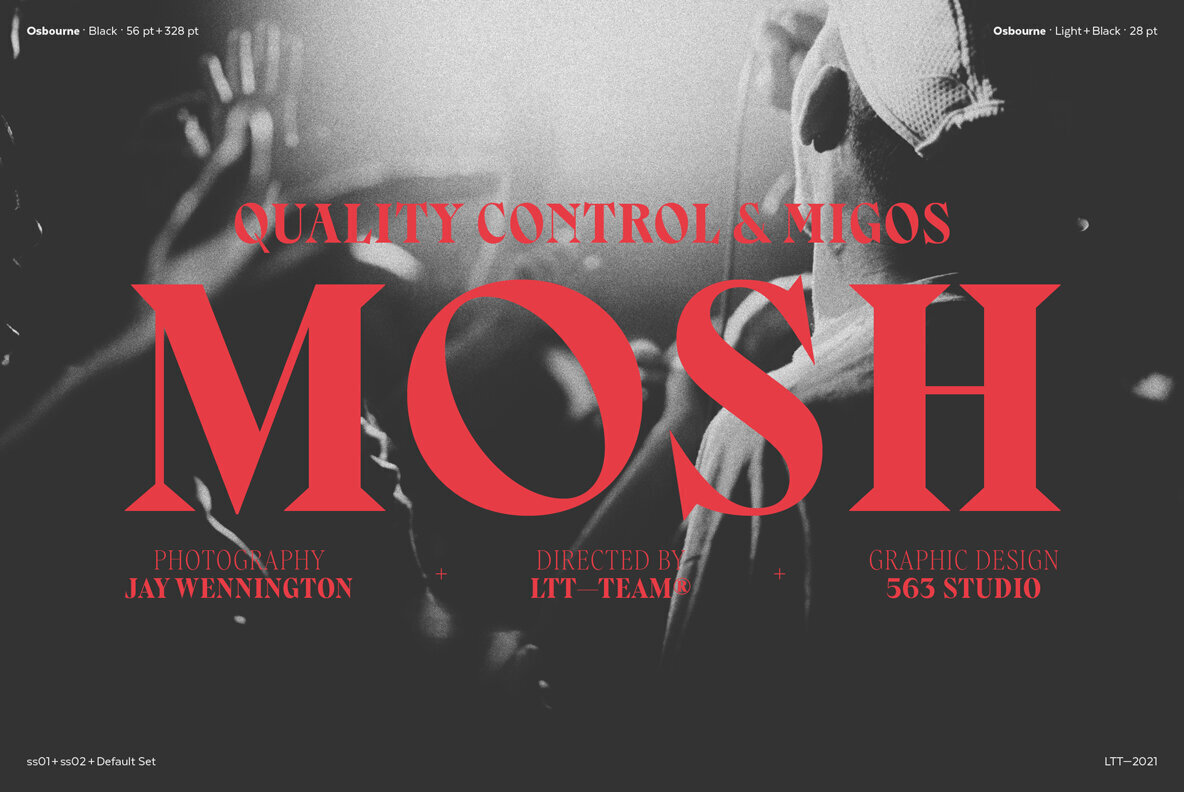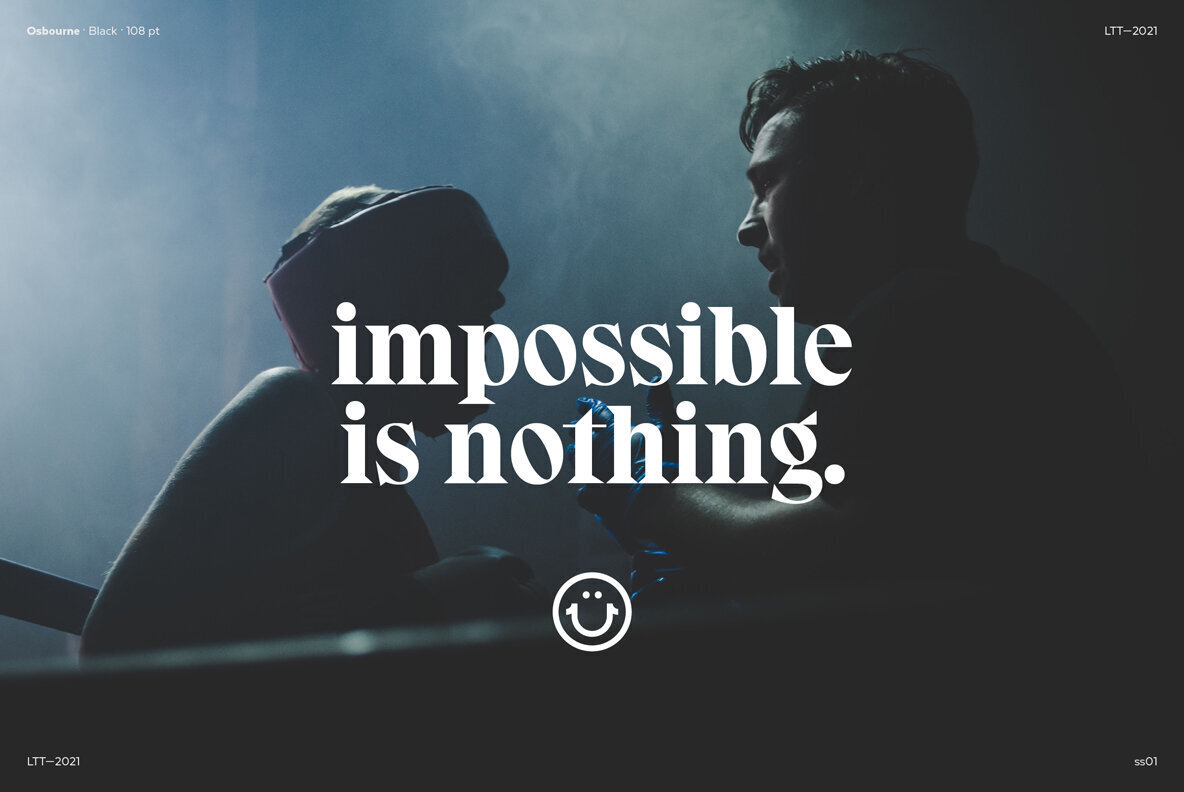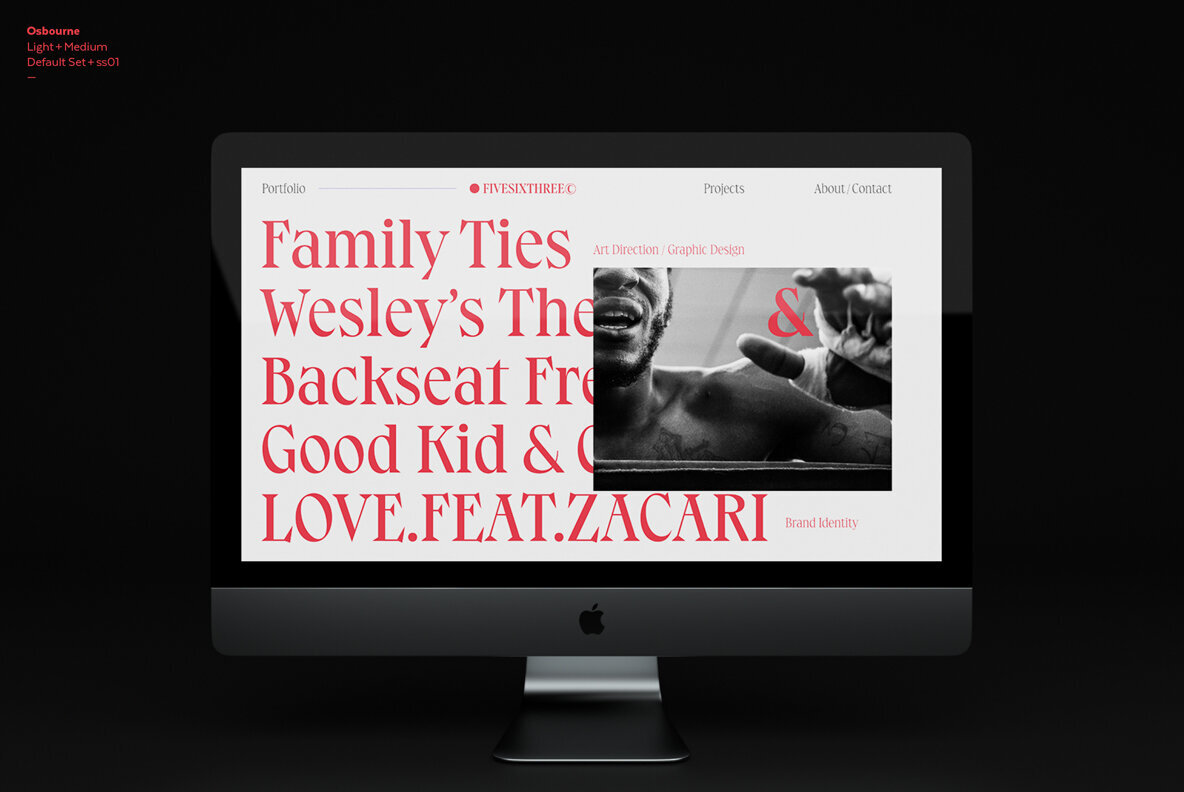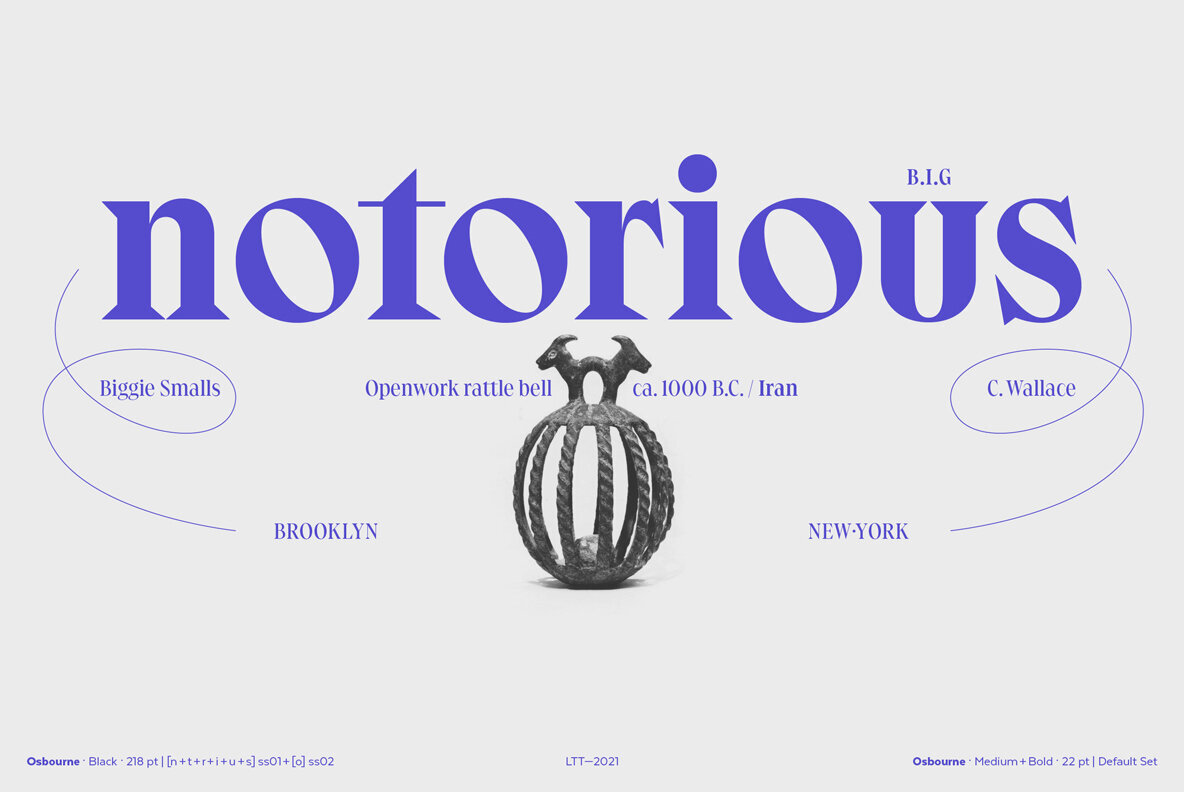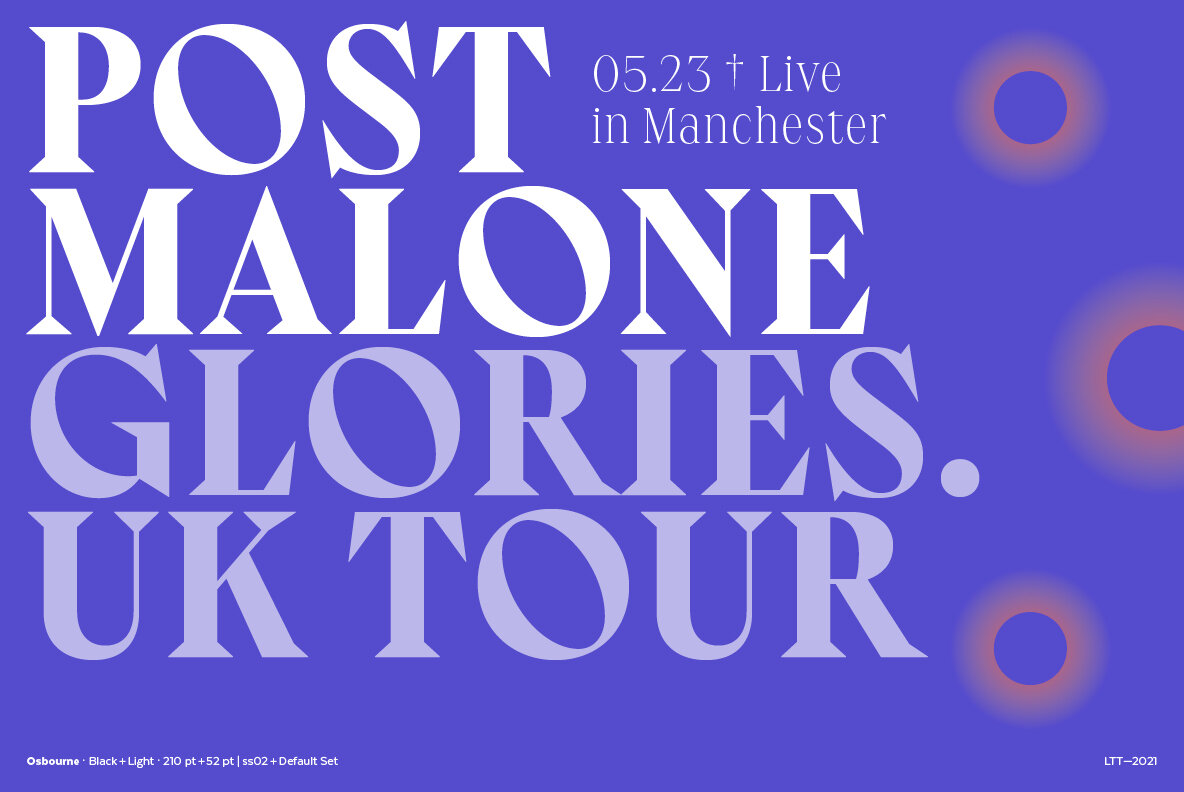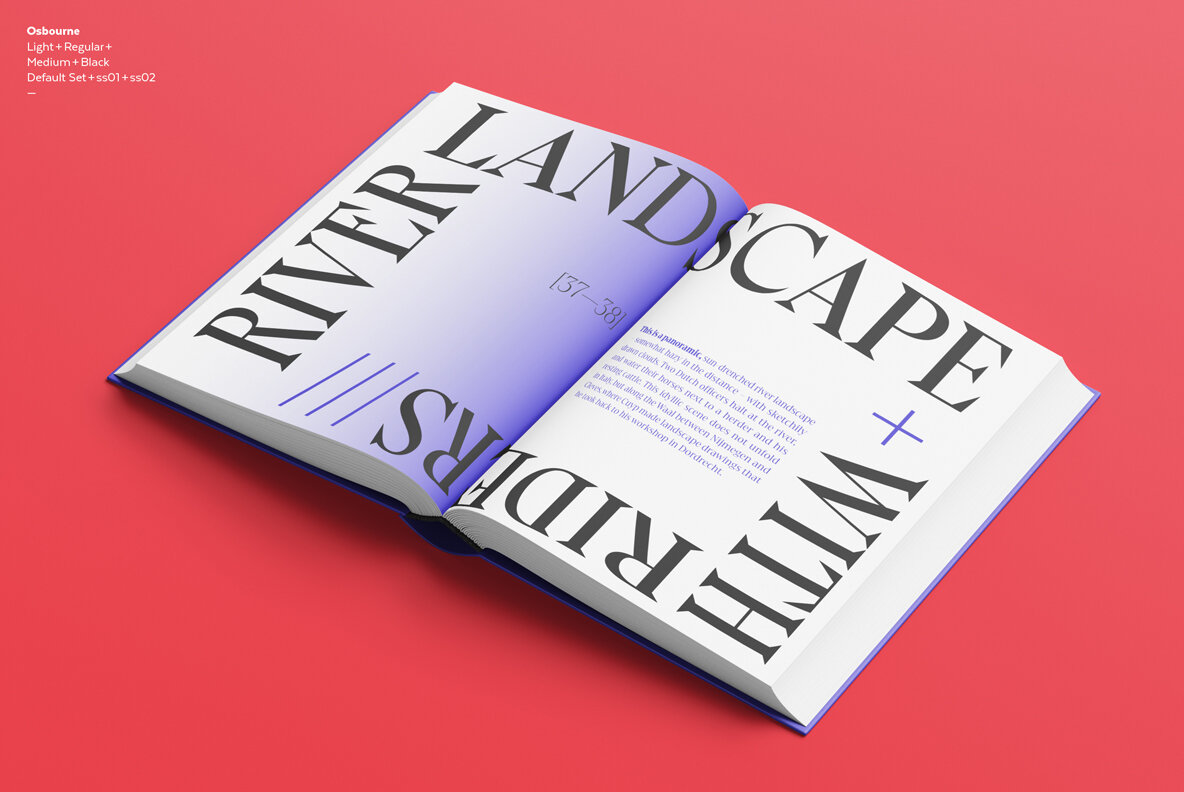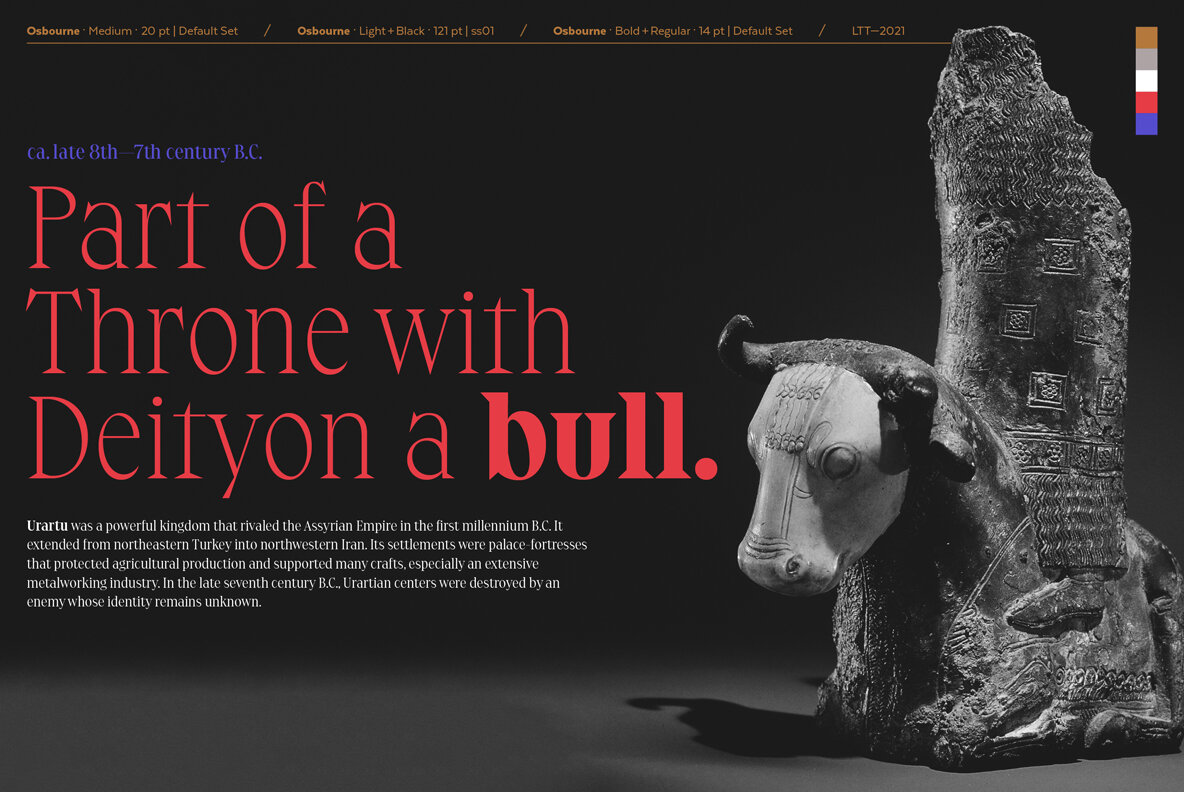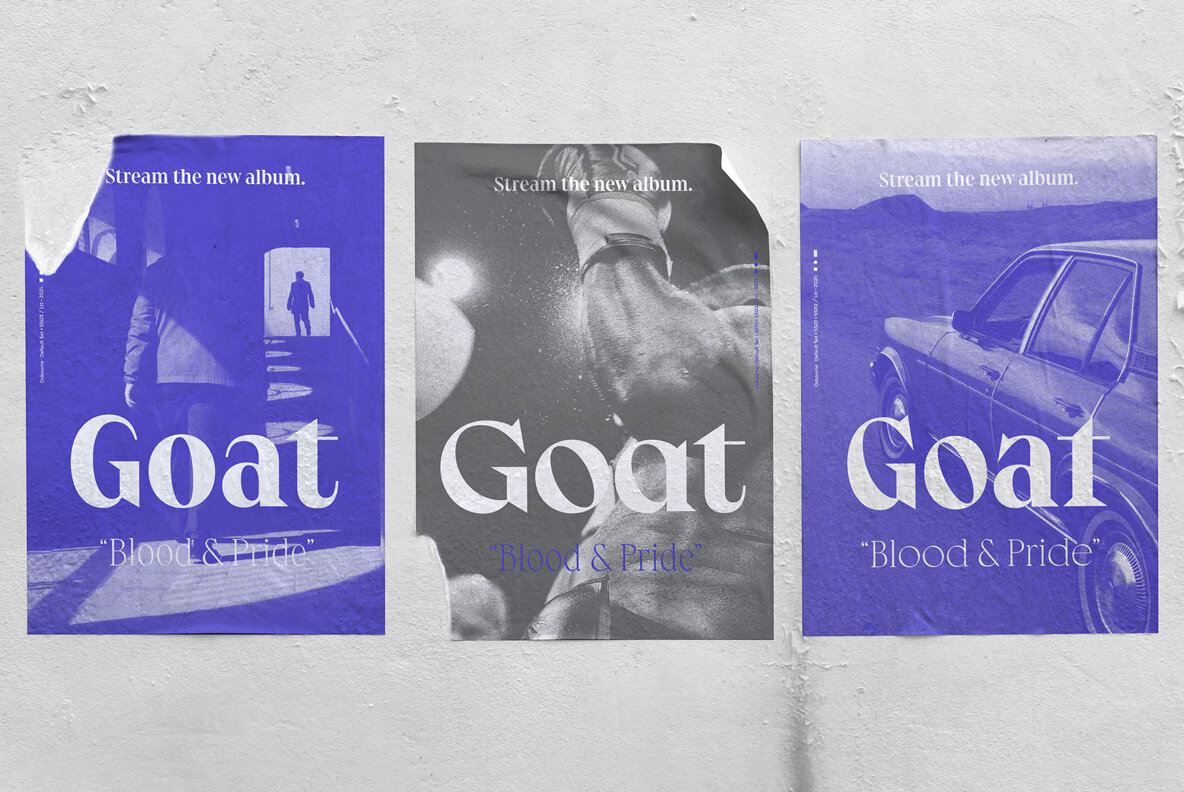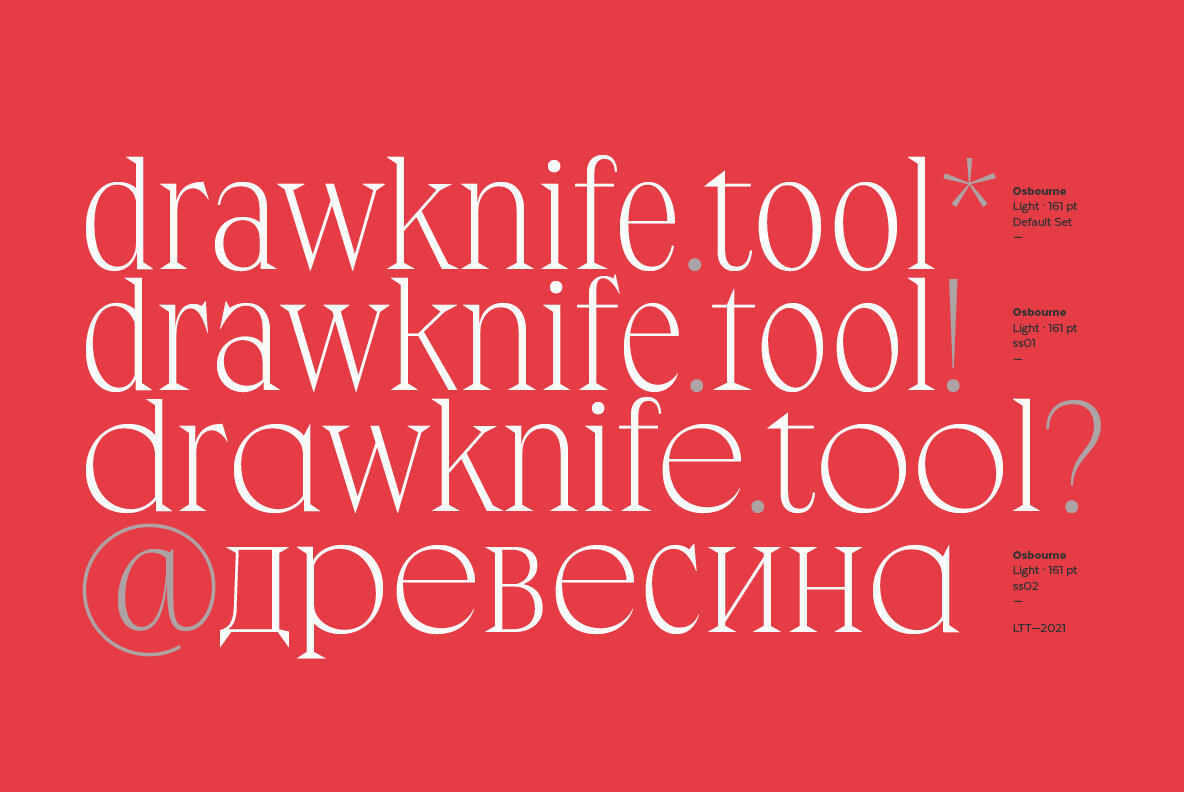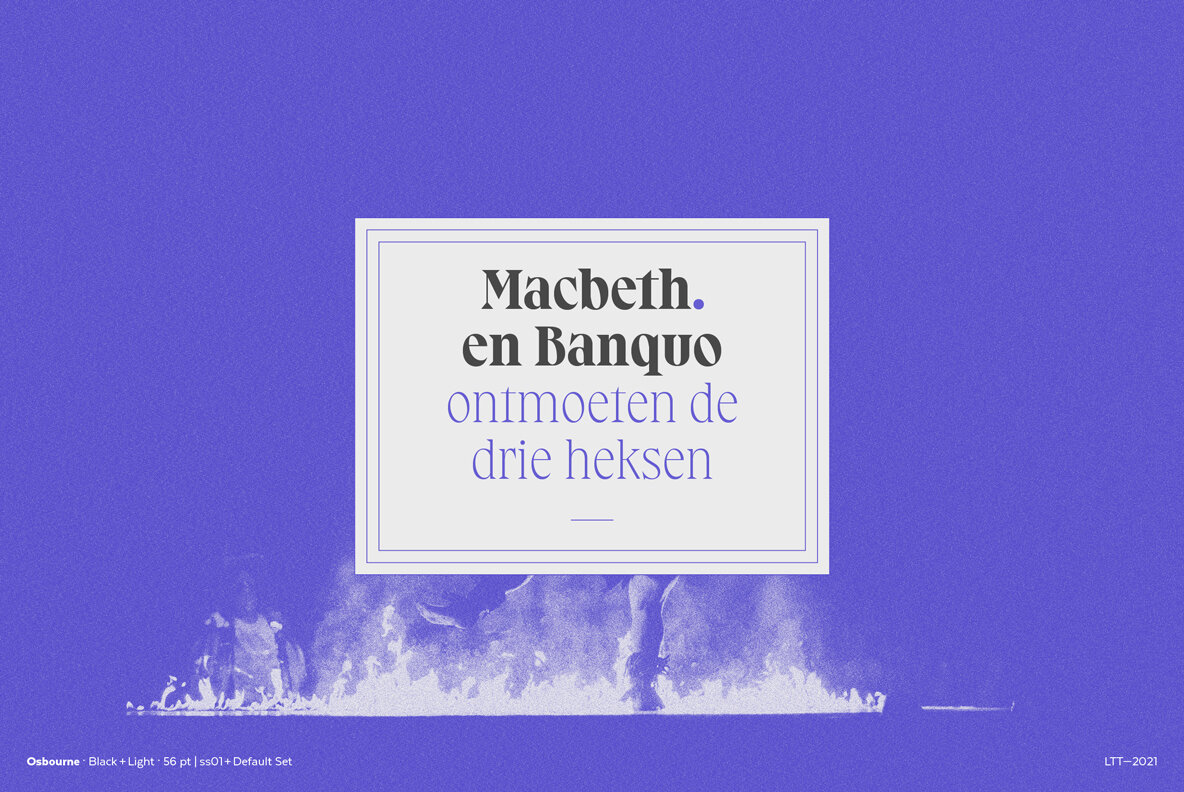
Osbourne Font
Osbourne is a display typeface with titles based on a refresh, a revival of Salem, originally designed by Keystone Type Foundry.
A font with elevated x-height and condense proportions. Visibly “sharp.”
In addition to the default version, it has two other versions: one that is sharper and another with wide alternatives to the circular characters. Between these and its five weights, Osbourne has a range of personalities to fit a designer’s needs. Think titles, branding, short texts, whatever you want to make look good.
Yet another font in the Latinotype arsenal that covers more than 200 languages within the Latin alphabet and basic Cyrillic.